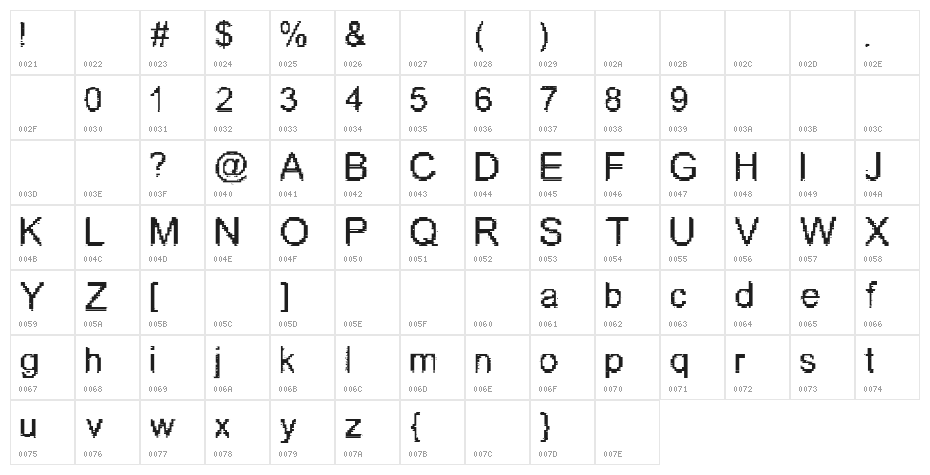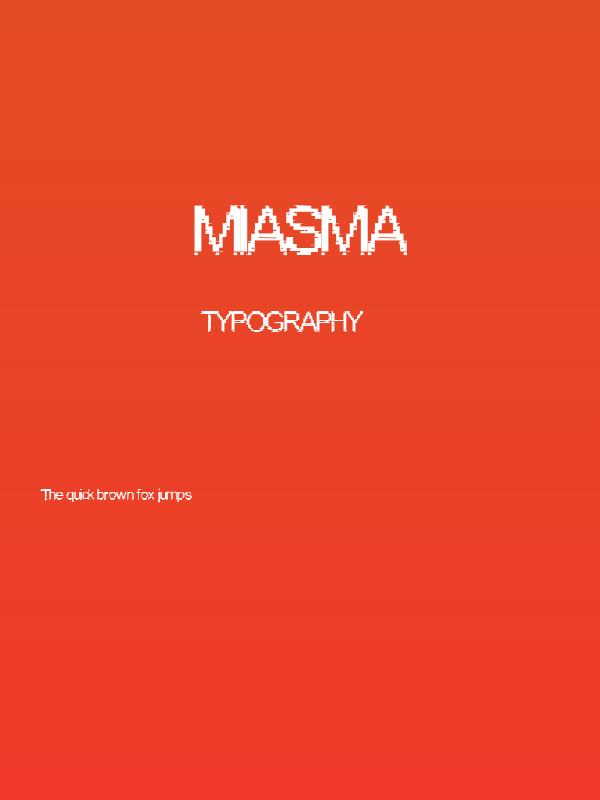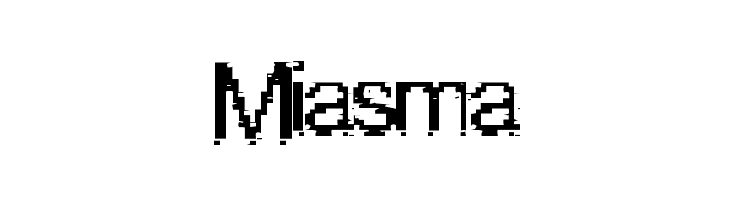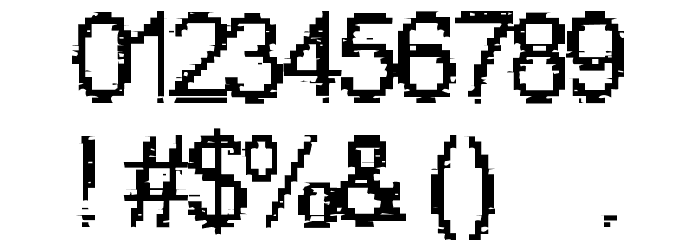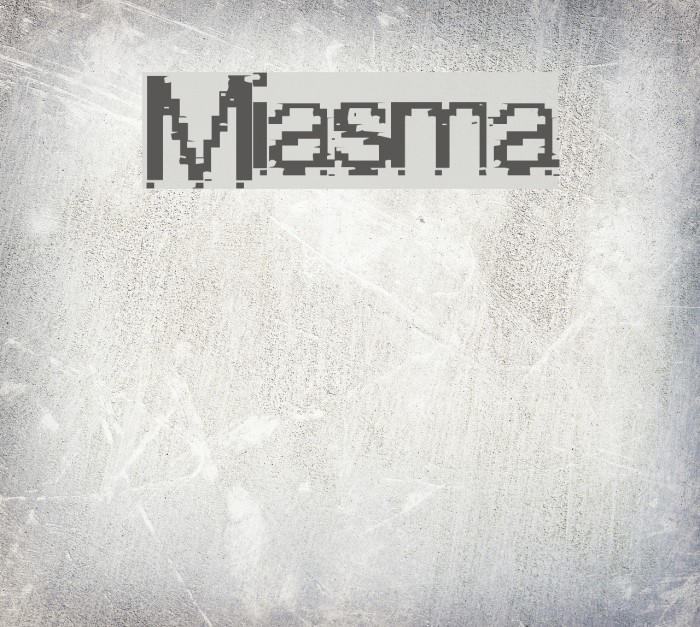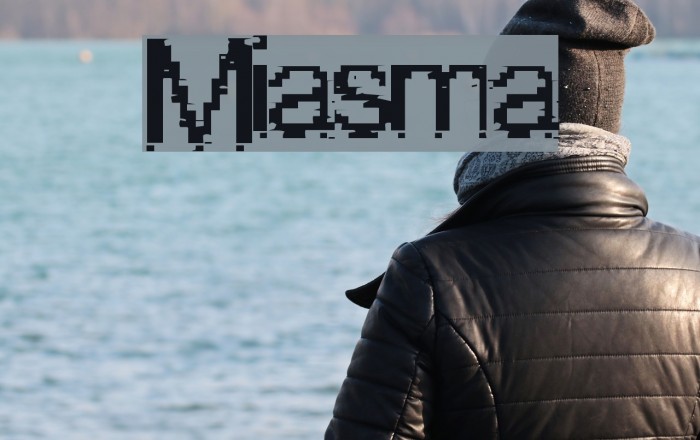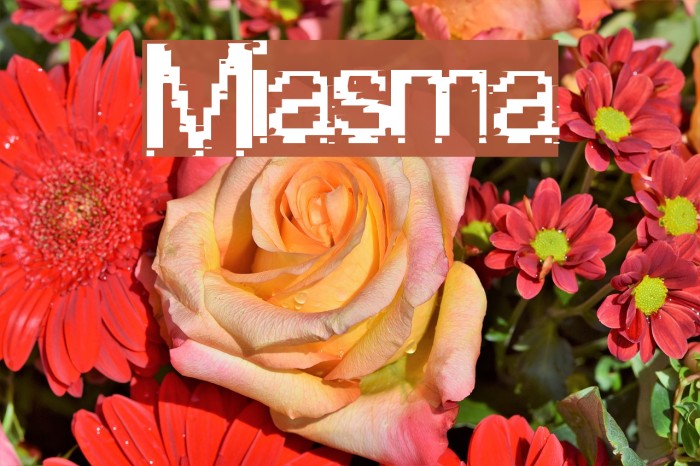
Miasma Font
Miasma Description
This font features a modern and edgy design with a digital glitch effect. The characters are structured with a geometric sans-serif style, providing a clean and contemporary look. The glitch effect adds a unique, distorted appearance to each letter, creating a sense of movement and dynamism. This font is ideal for projects that aim to convey a futuristic or tech-inspired aesthetic. The uppercase and lowercase letters maintain a consistent height, while the numerals and special characters follow the same glitchy theme, ensuring uniformity across all text elements.
| Use Case | Logos, Headlines, Digital Art |
| Proposed Projects | Ideal for digital art, tech branding, video game graphics, and futuristic posters. |